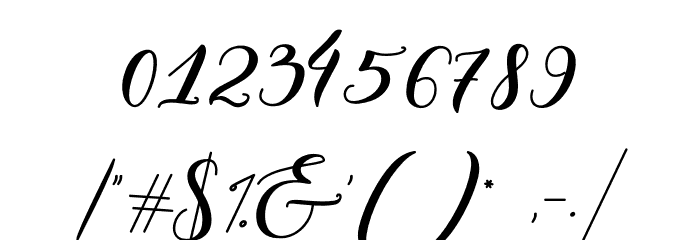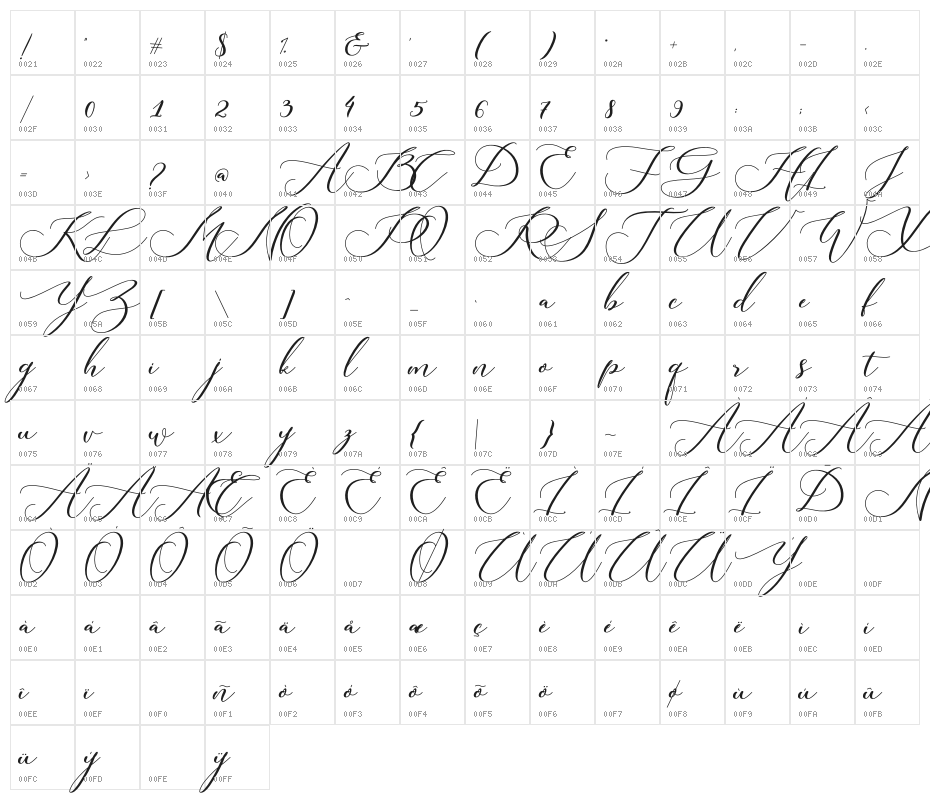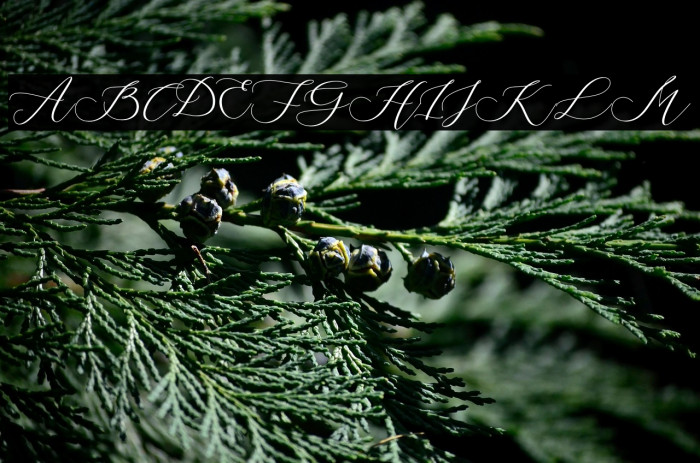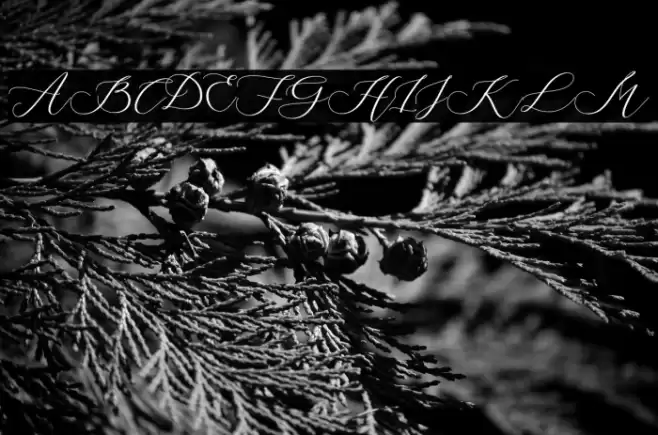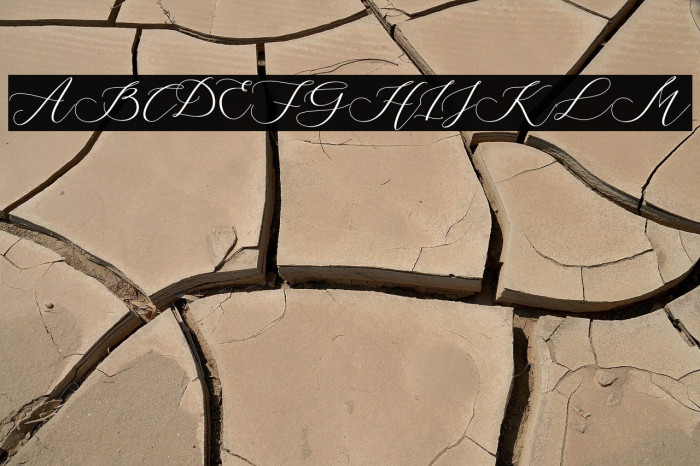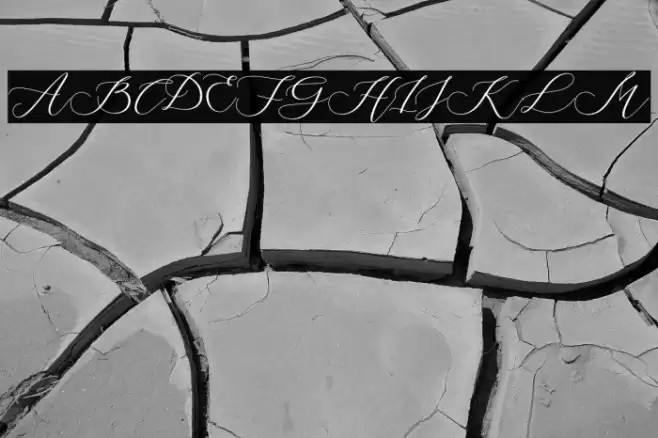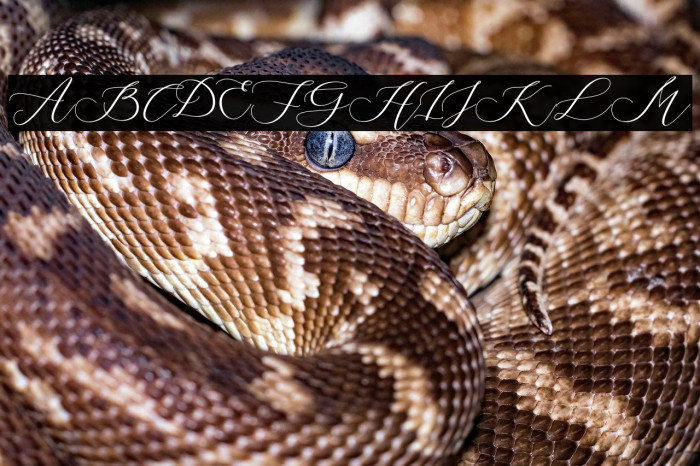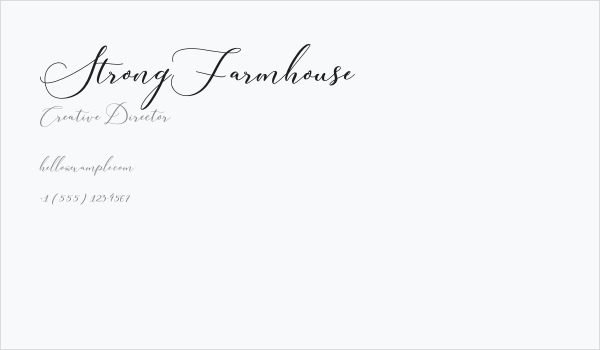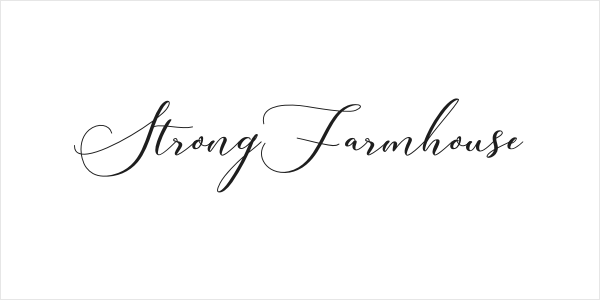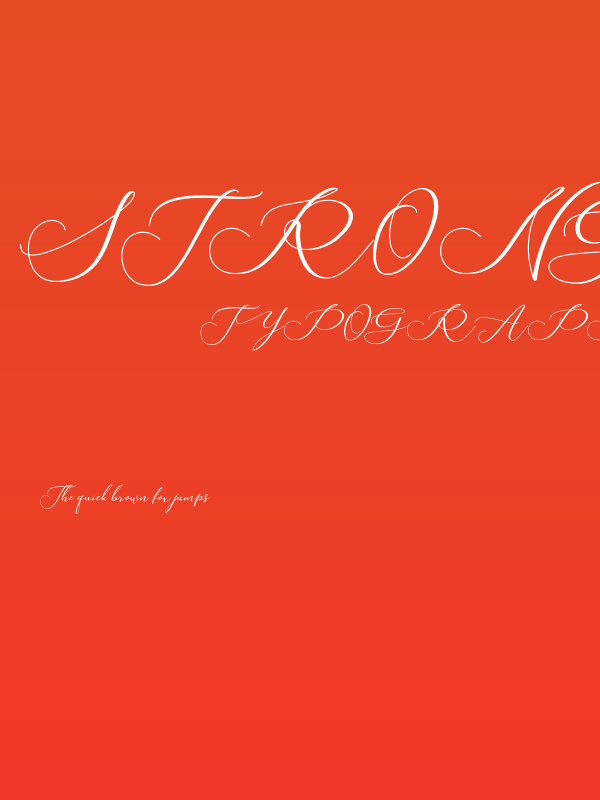
StrongFarmhouse Font
StrongFarmhouse Description
This font exudes a charming and elegant script style, characterized by its fluid and graceful strokes. The uppercase letters are delicately connected, while the lowercase letters feature a more pronounced and flowing design. The numbers maintain the same elegant style, offering a cohesive look throughout. Special characters are crafted with the same attention to detail, ensuring a harmonious appearance. This font is perfect for adding a touch of sophistication and elegance to any project.
| Proposed Projects | Ideal for wedding invitations, greeting cards, branding, and elegant signage. |